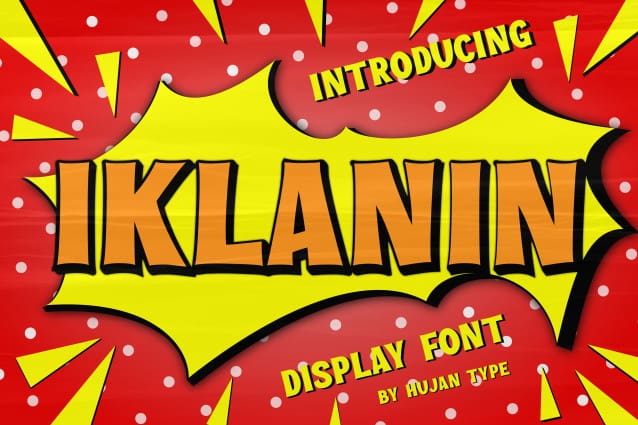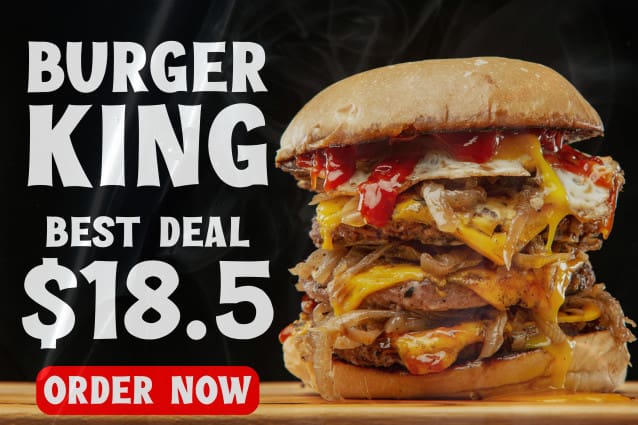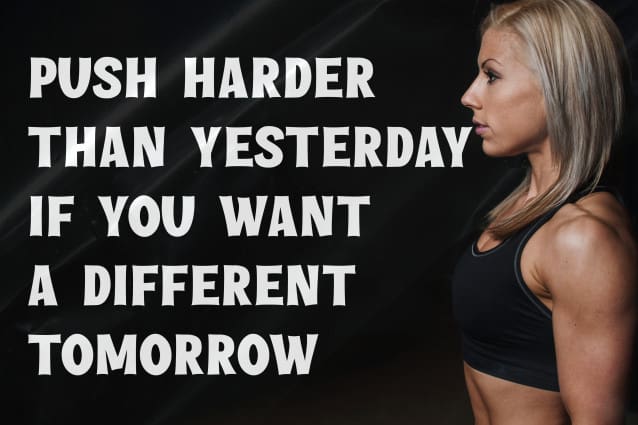
Iklanin Font
Iklanin Font is a display font inspired by old design archives. This font suitable with your projects such as poster, user interface, magazine, logo, apparel design, social media post, advertisements, product packaging, product designs, labels, etc.